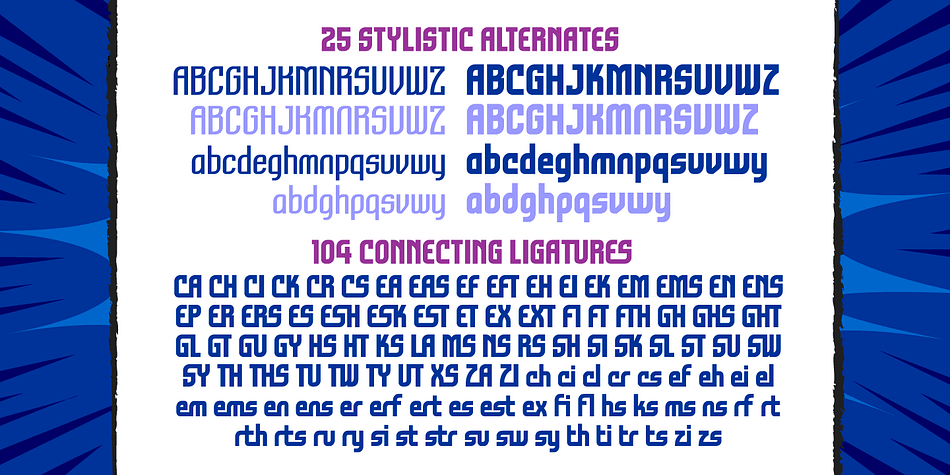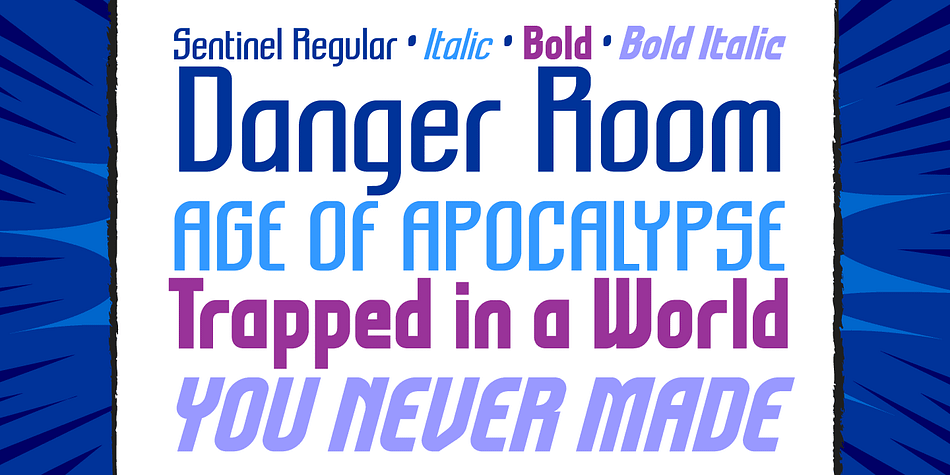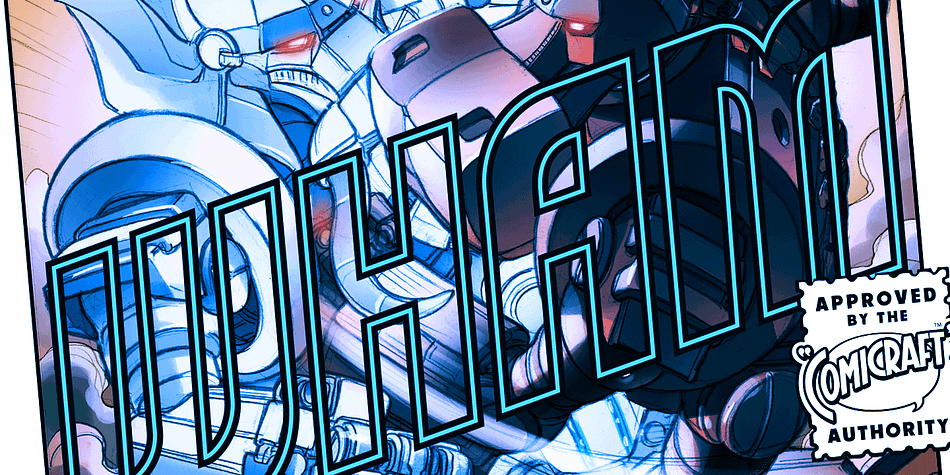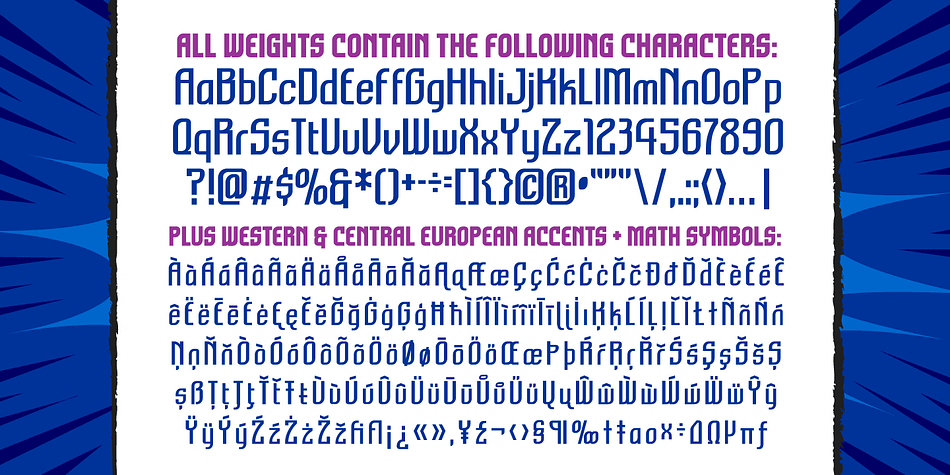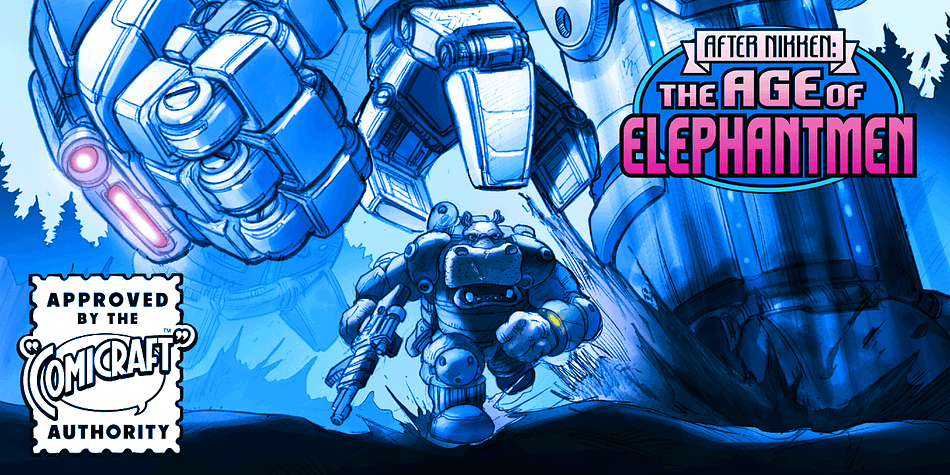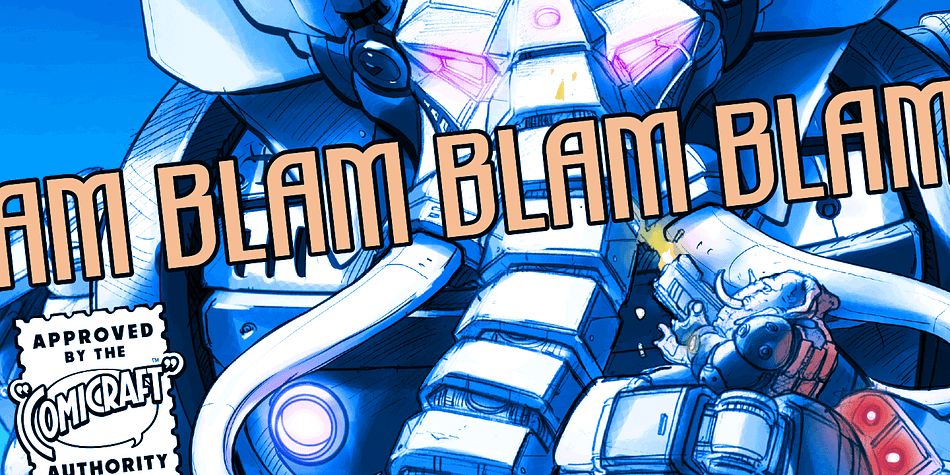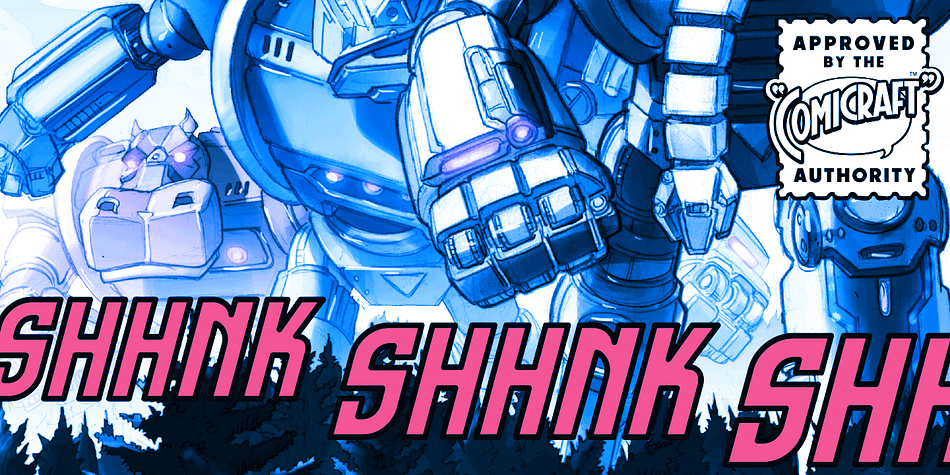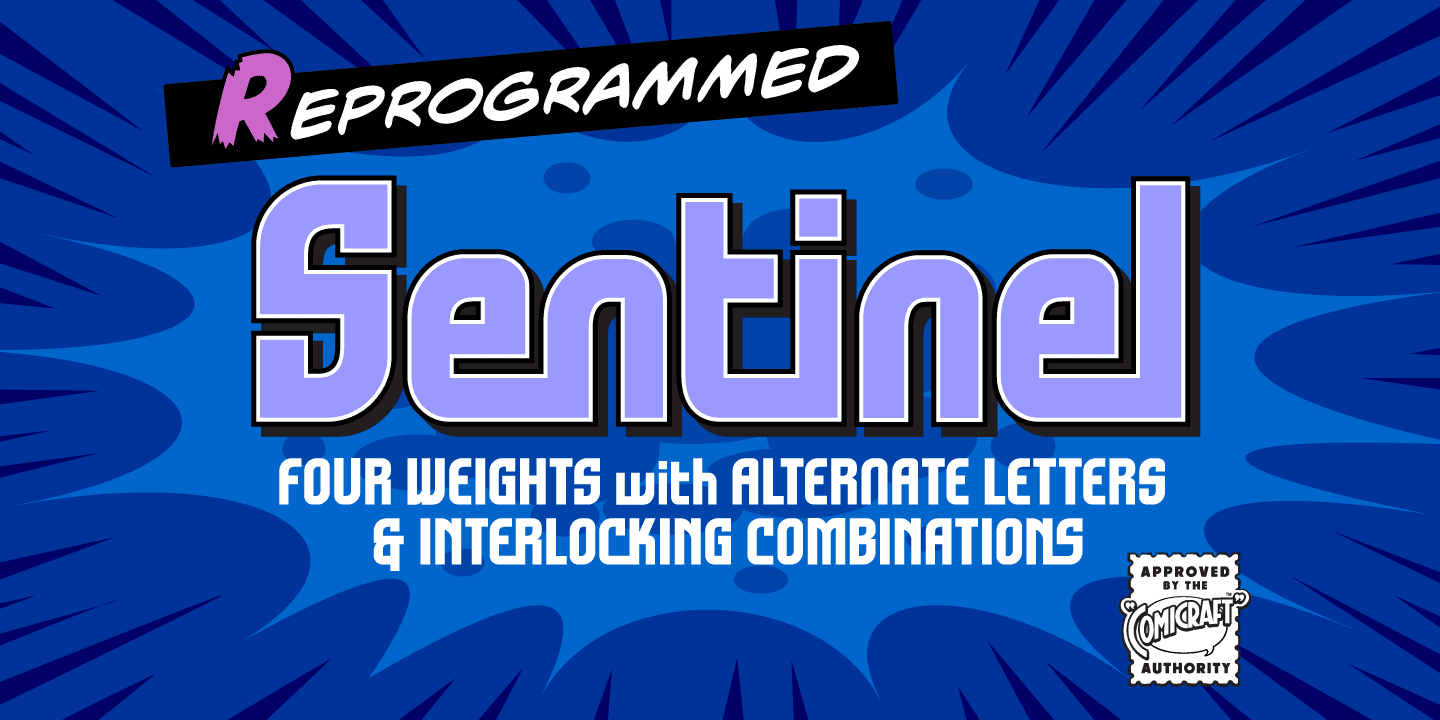
Designed by John Roshell, Sentinel is a display sans font family. This typeface has four styles and was published by Comicraft.
Common use(s) of Comicraft’s All-new, All-different SENTINEL font include FACTOR-X, X-MAN, GENERATION NEXT and X-CALIBRE.
Possible Side Effects: This font should not be used if you are trapped in a world you never made or a world full of people that hate and fear you. Prolonged exposure to this font during an Age of Apocalypse may cause fatigue, muscle soreness, first degree burns and immobility. Contraindications in Homo Superior may manifest as an outbreak of large purple automatons.
Interactions: Before using this font in either regular or bold doses, notify your doctor of any recent exposure to mechanoids, synthezoids or paranoid androids.
Reprogrammed Sentinel has improved spacing and kerning, Western & Central European accents, alternate lettershapes, and a new Interlocking Mode with over 100 connecting letter combinations!
Four weights (Regular, Italic, Bold & Bold Italic) with upper and lower case alphabets. Includes Western and Central European international characters.